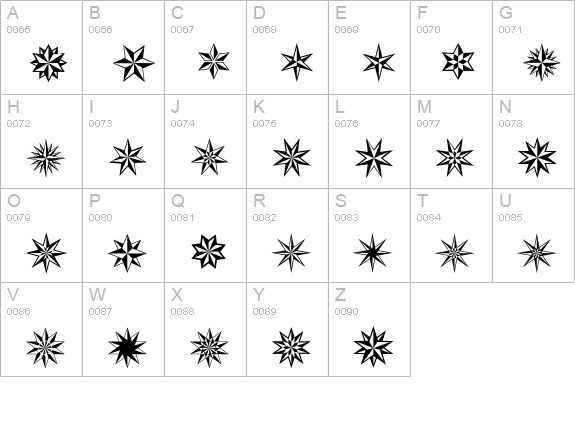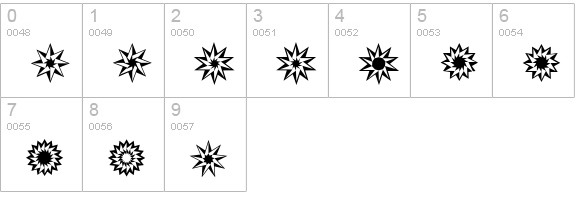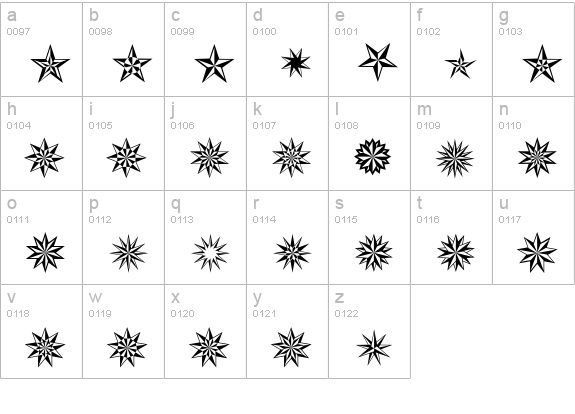
XStarsAndStripesOne Font Details
Introducing XStarsAndStripesOne font, a bold and eye-catching typeface that embodies the spirit of patriotism and celebration. With its unique blend of stars and stripes elements, this font is perfect for any design project that requires a touch of Americana flair. XStarsAndStripesOne font features a sleek and modern design that is sure to make a statement. Best of all, XStarsAndStripesOne font is completely free to download at FontsMarket.com. Whether you're working on a Fourth of July invitation, a Memorial Day flyer, or simply want to add a touch of Americana to your designs, this font is the perfect choice. Don't miss out on this versatile and striking typeface - download XStarsAndStripesOne font today and let your creativity soar!